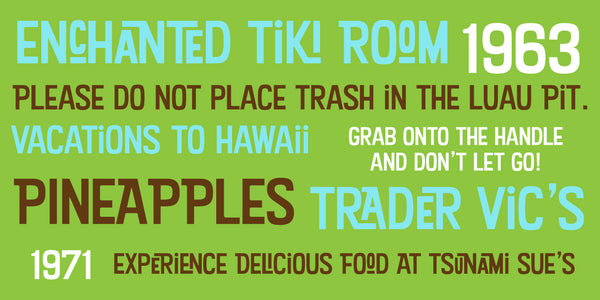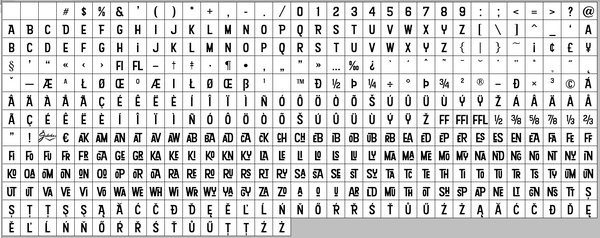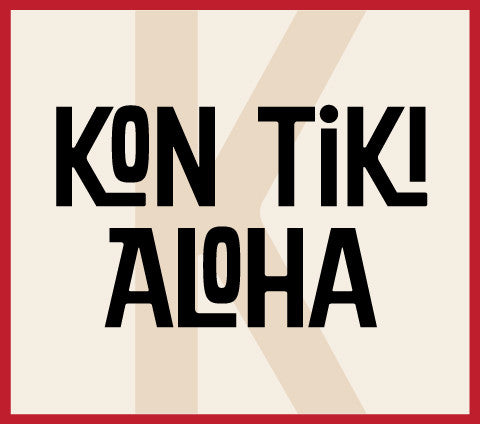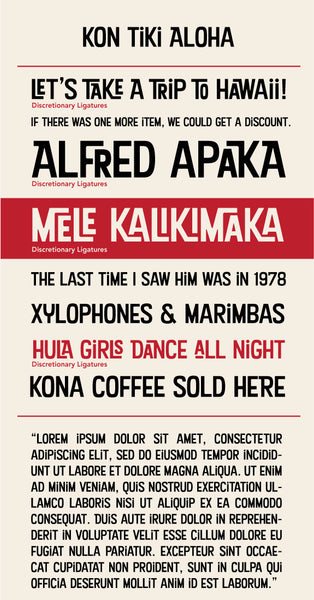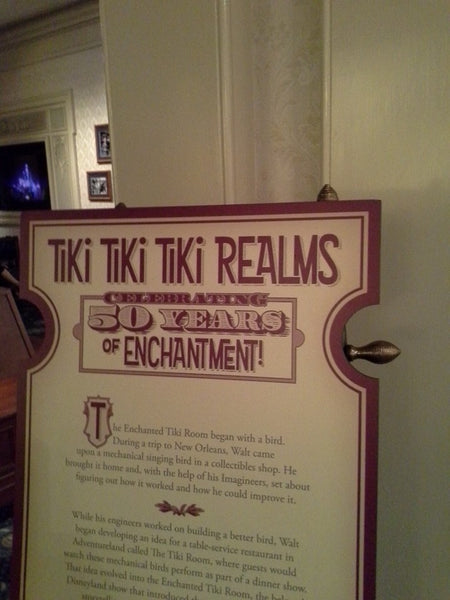
Kon Tiki Aloha
Kon Tiki Aloha is a font that celebrates the design style of mid 20th Century Hawaiian kitsch. This font was inspired by the ad poster of a popular 1960s Hawaiian themed attraction, and contains 120 alternate interlocking ligatures to give it a Polynesian feel. The ligatures can be found under the Discretionary Ligatures OT feature or added from the glyph palette.
Notable Use: Kon Tiki Aloha was used by Disneyland for the signage for their exhibition on the 50th Anniversary of the "Enchanted Tiki Room" attraction.